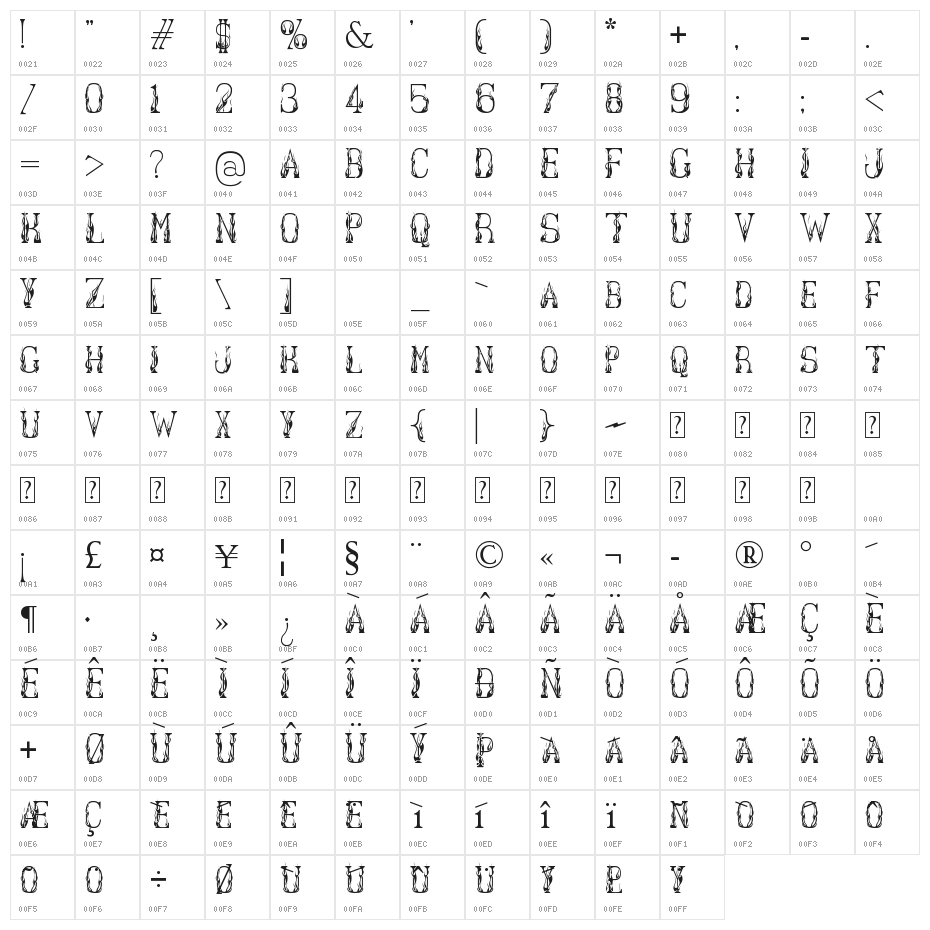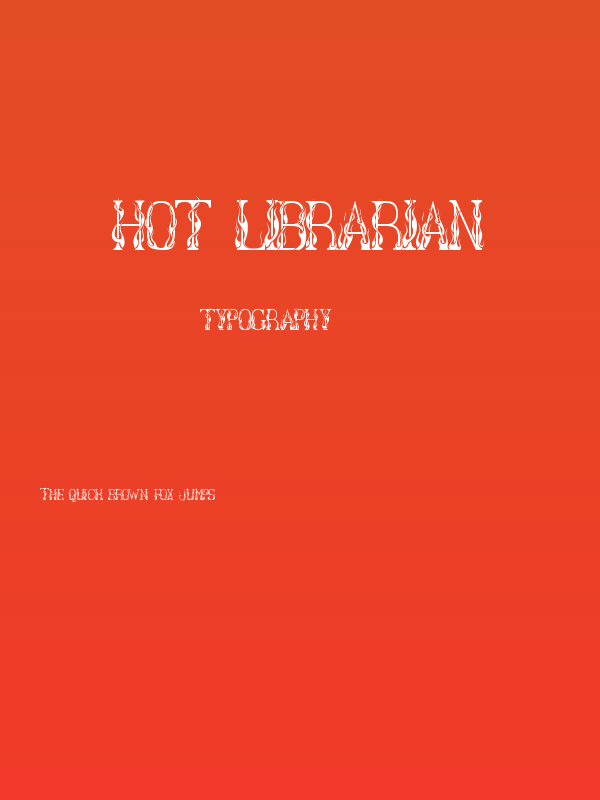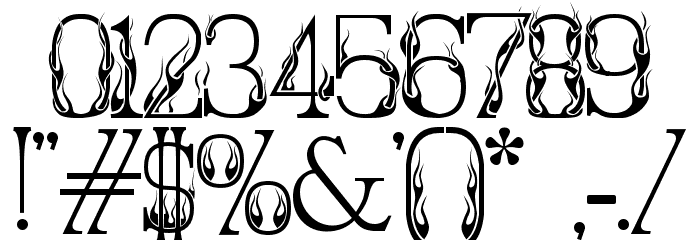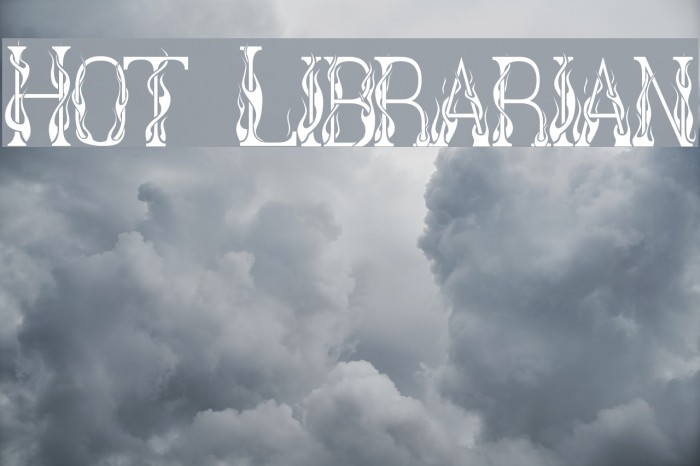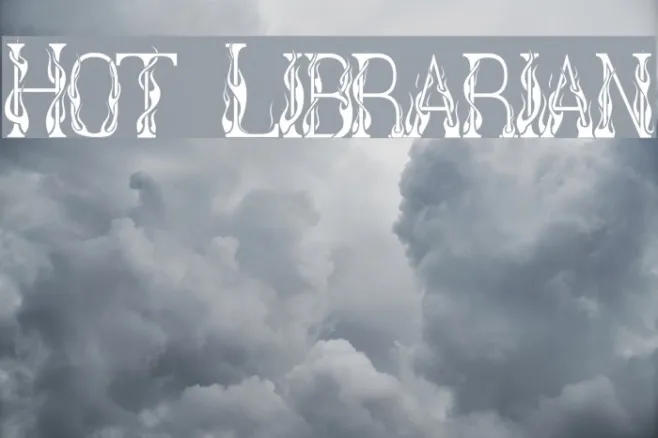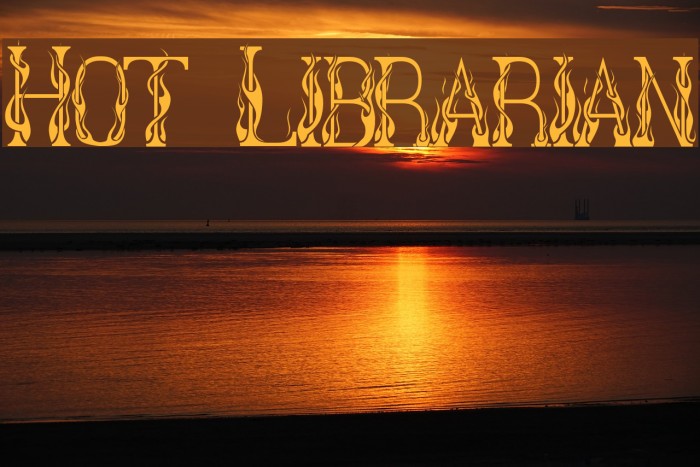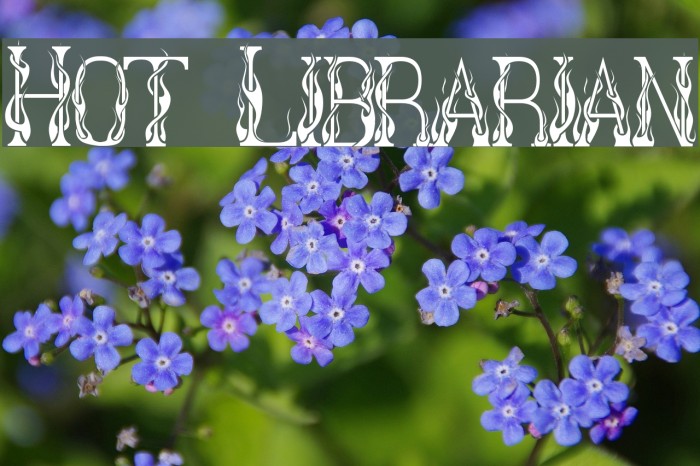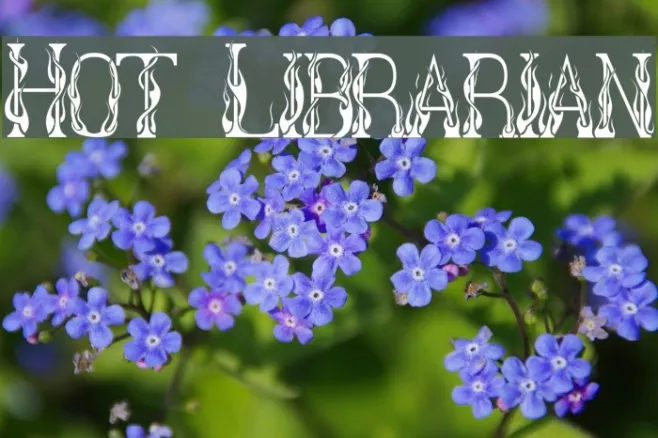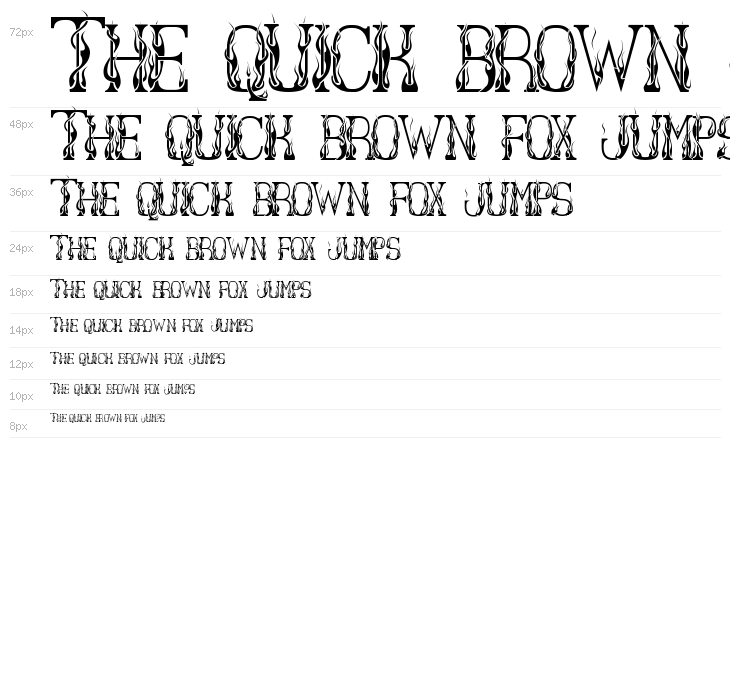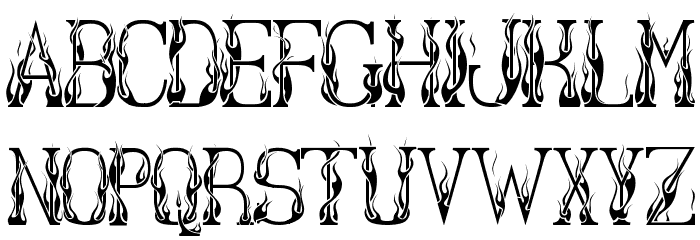
Hot Librarian Font
Hot Librarian Description
This font features a striking and dynamic design with flames integrated into each character, creating a sense of movement and intensity. The uppercase and lowercase letters, as well as numbers and special characters, are all adorned with flame motifs that rise from the base, giving the impression of letters engulfed in fire. The style is bold and eye-catching, making it ideal for projects that require a dramatic and impactful visual statement. The characters are well-defined, with a consistent flame pattern that enhances the overall aesthetic without compromising readability.
| Proposed Projects | Ideal for use in posters, album covers, event flyers, and branding materials that require a fiery and energetic theme. |